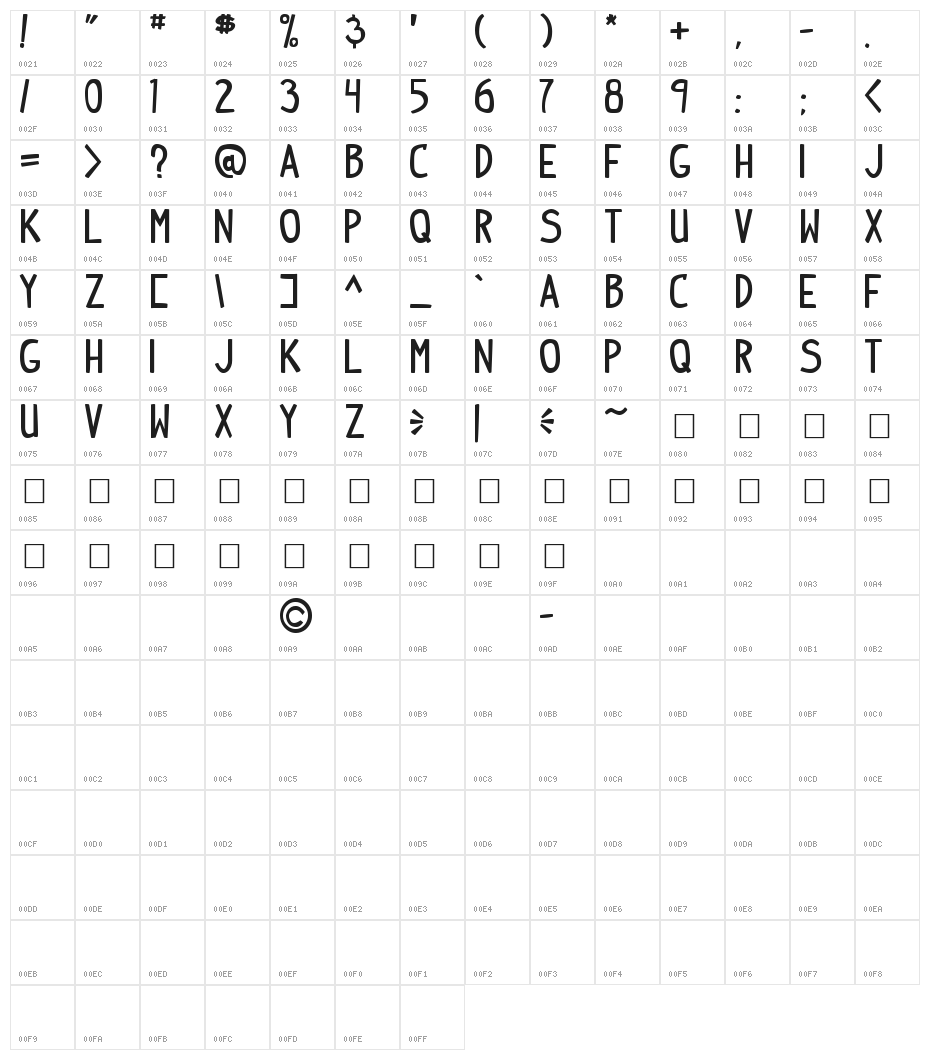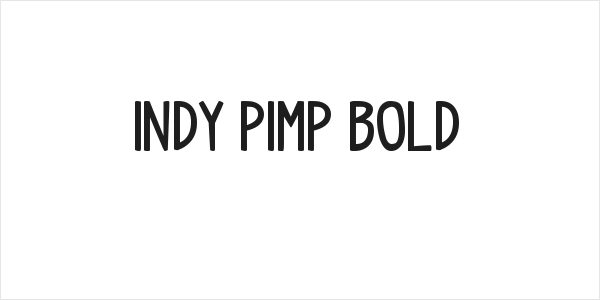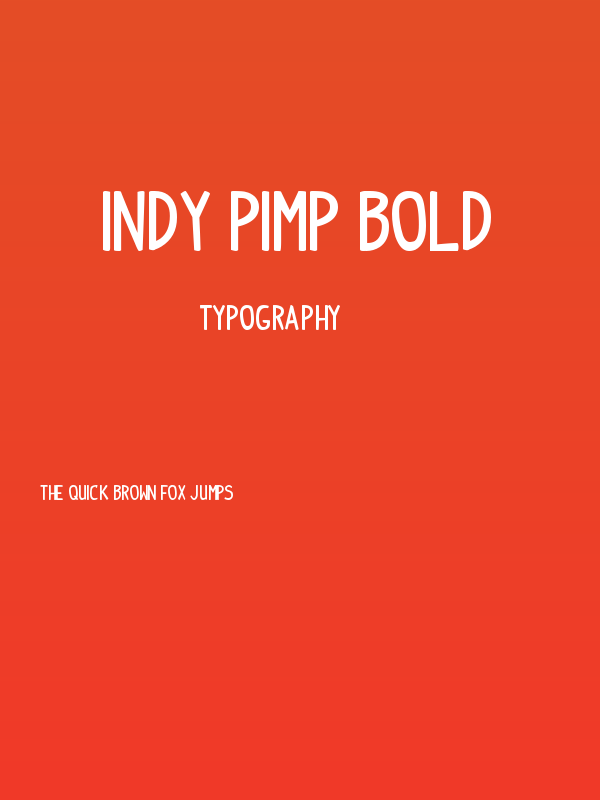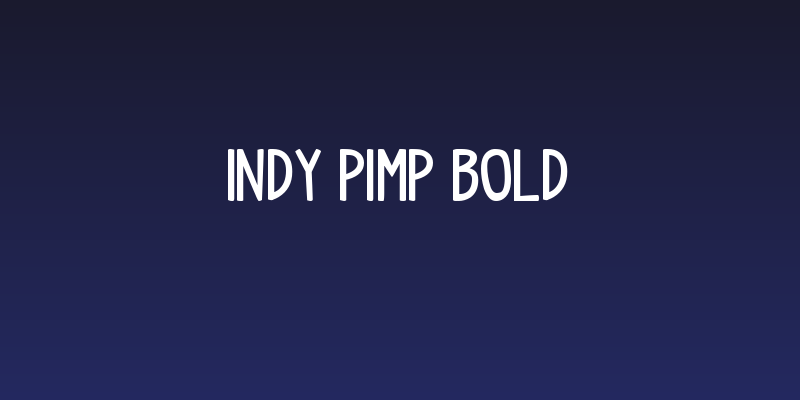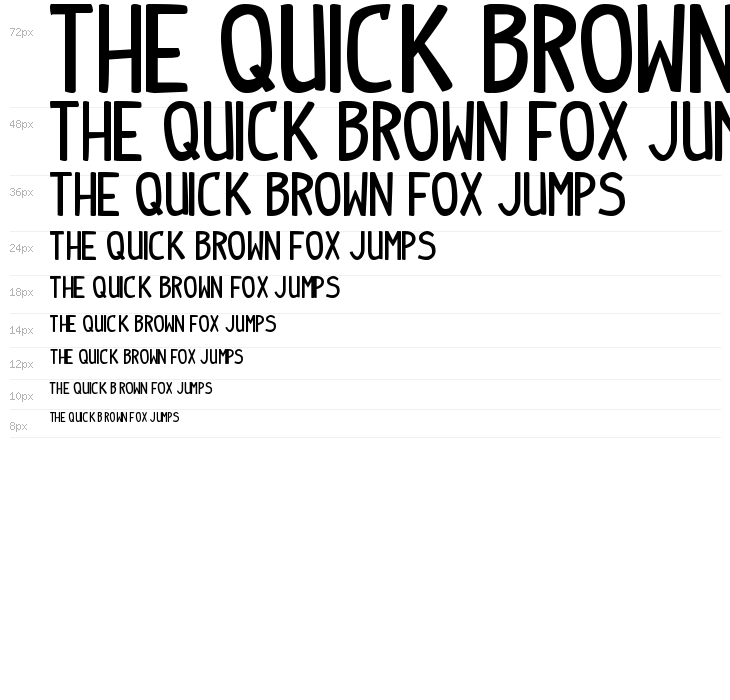
indy pimp Bold Font
indy pimp Bold Description
This font features a bold and playful style with a slightly irregular and hand-drawn appearance. The characters are rounded and have a casual, informal look, making them stand out with a unique charm. The uppercase and lowercase letters maintain a consistent style, with a slight tilt that adds to the dynamic feel. The numbers and special characters are designed to match the overall playful aesthetic, ensuring a cohesive look across all elements. This font is ideal for projects that require a fun and approachable vibe.
| Overall Style | Playful, Informal, Hand-drawn |
| Use Case | Headlines, Posters, Branding |
| Proposed Projects | Great for children's books, playful branding, casual invitations, and creative posters. |